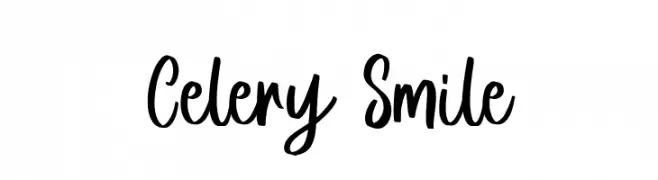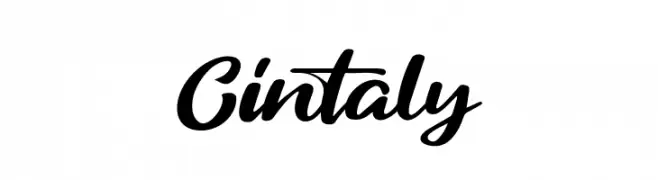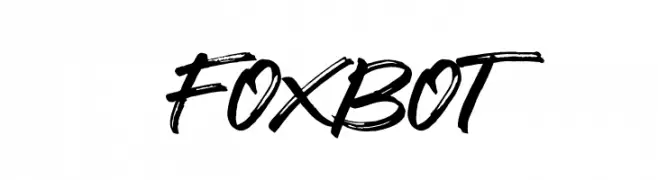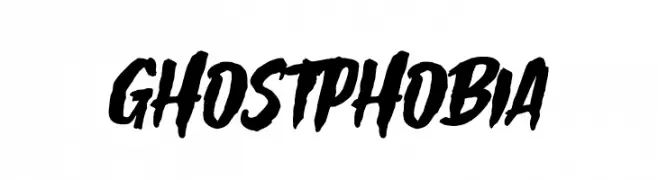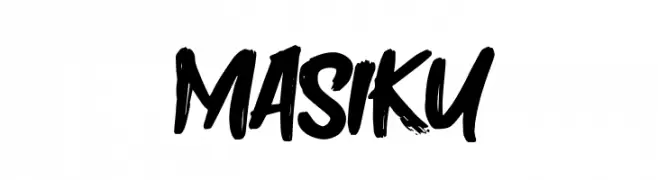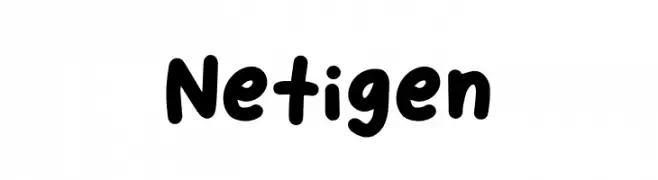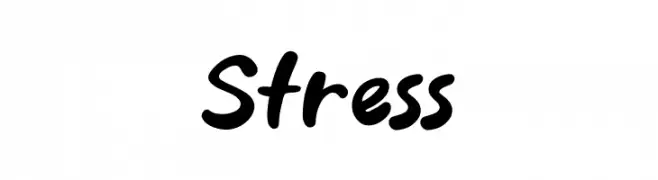
A bold, cursive font with a flowing, handwritten style.
A playful, bold font with rounded, thick strokes and a hand-drawn feel.
A bold, handwritten font with fluid strokes and a playful style.
A playful, handwritten font with bold, dynamic strokes and a casual appearance.
A playful handwritten font with smooth, flowing curves and a casual style.
A bold, brush-style font with dynamic, hand-painted strokes.
A bold, brush-style font with dynamic and energetic character shapes.
A bold, dynamic brush script font with expressive strokes.
A bold, dynamic script font with fluid, energetic strokes.
A bold, hand-drawn font with a rugged and organic style.